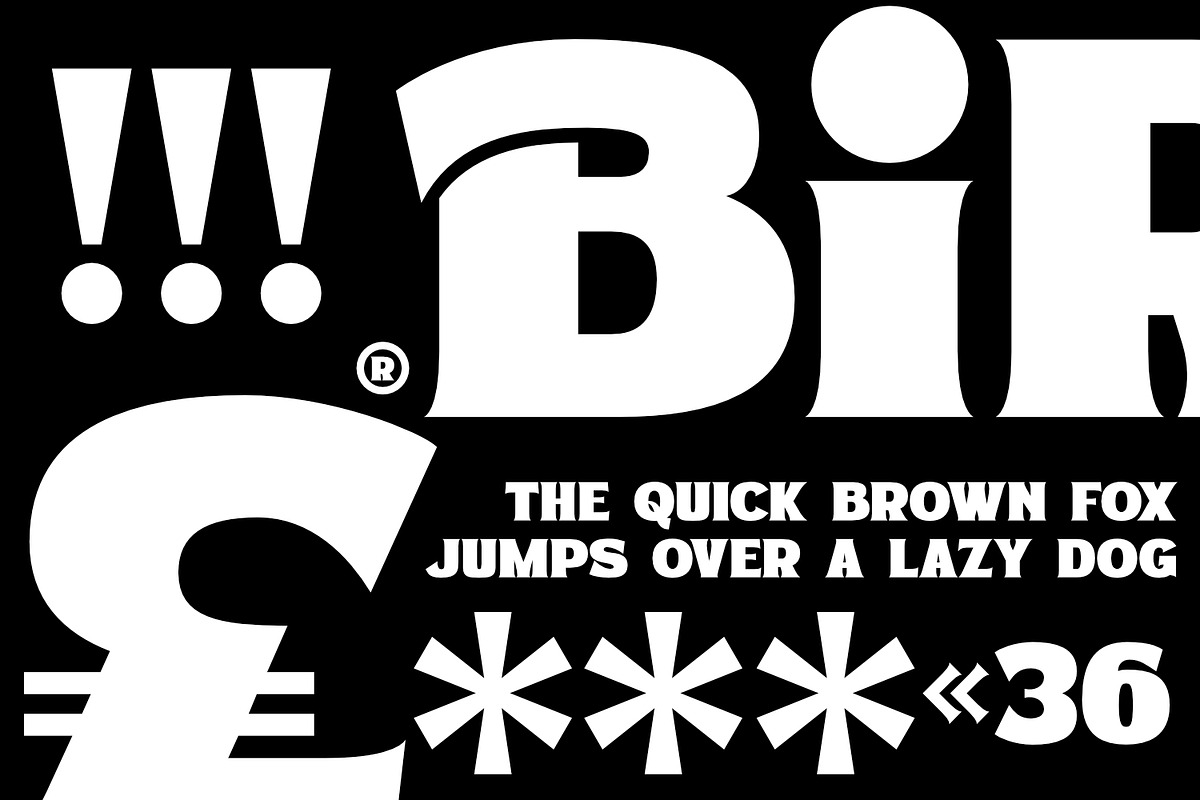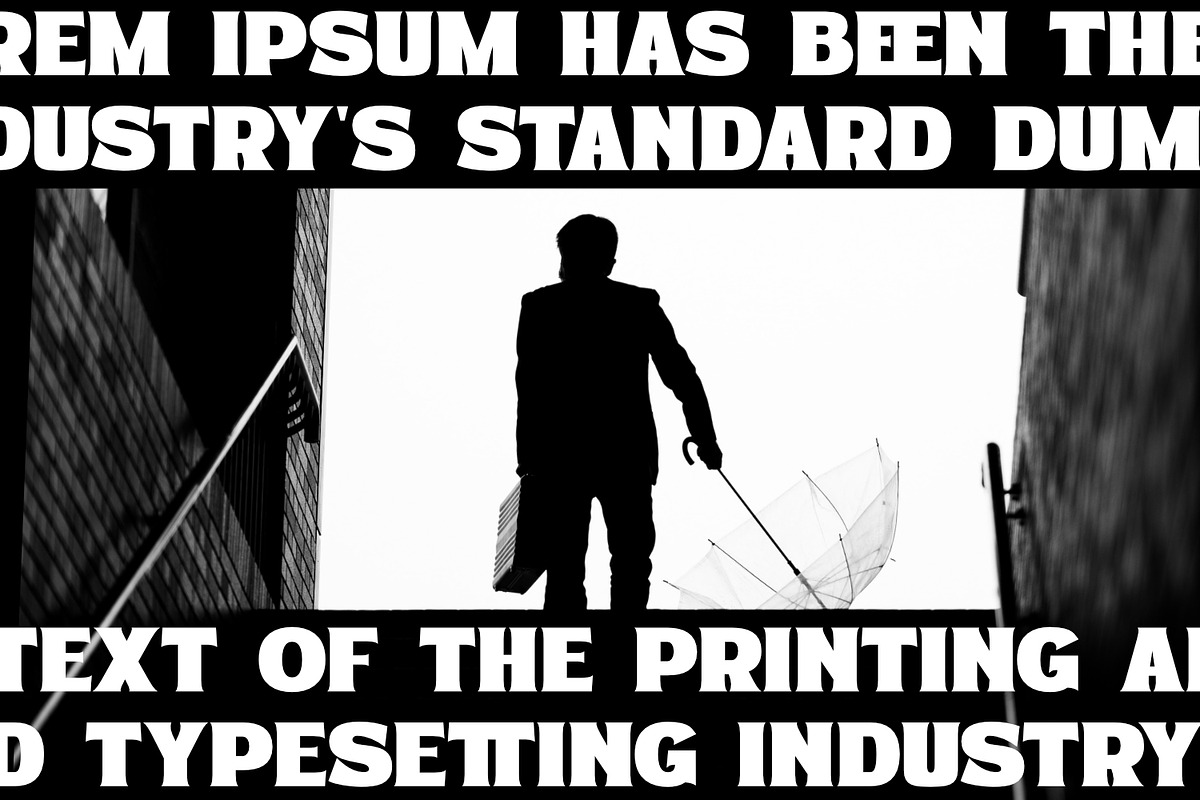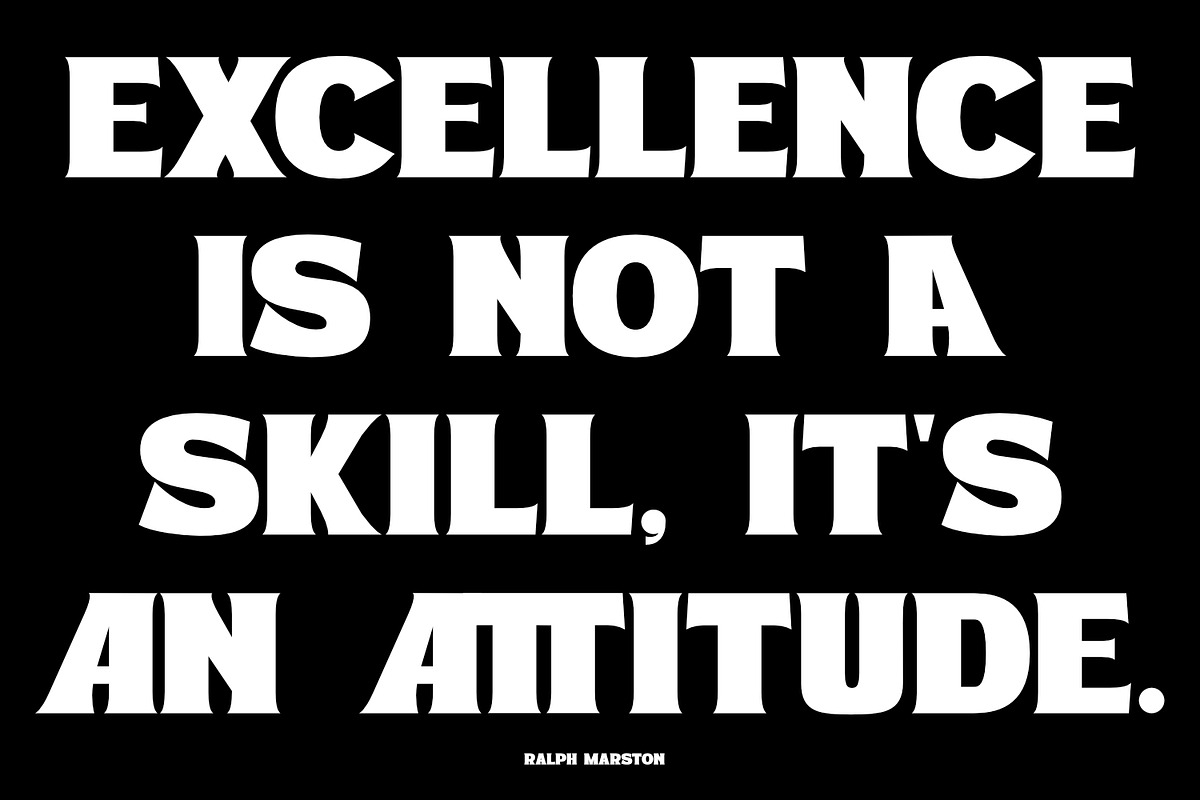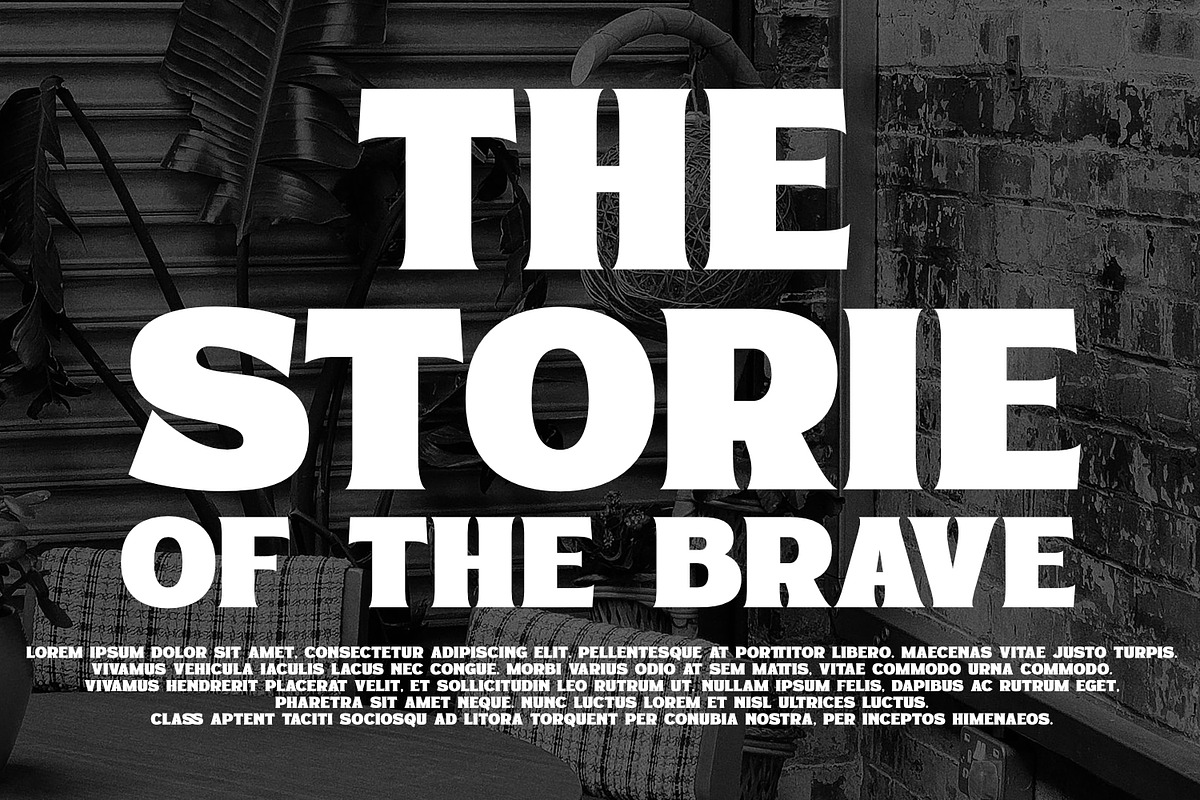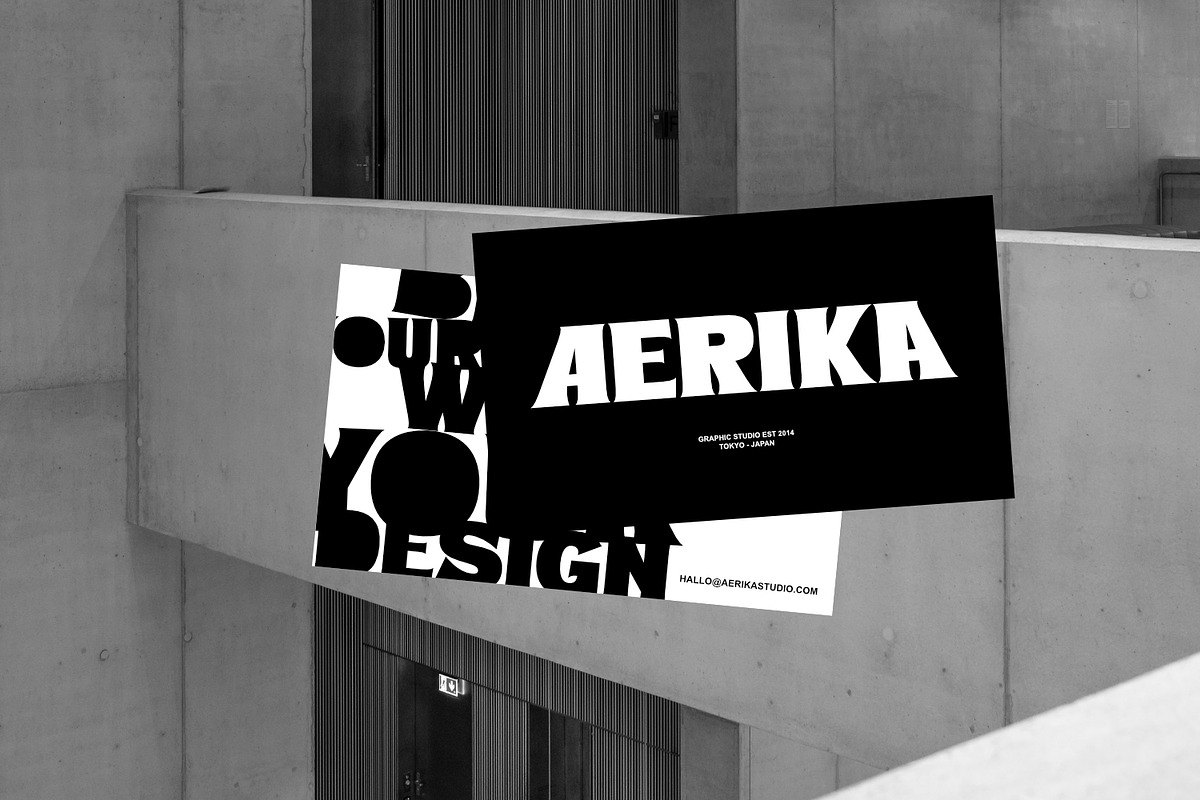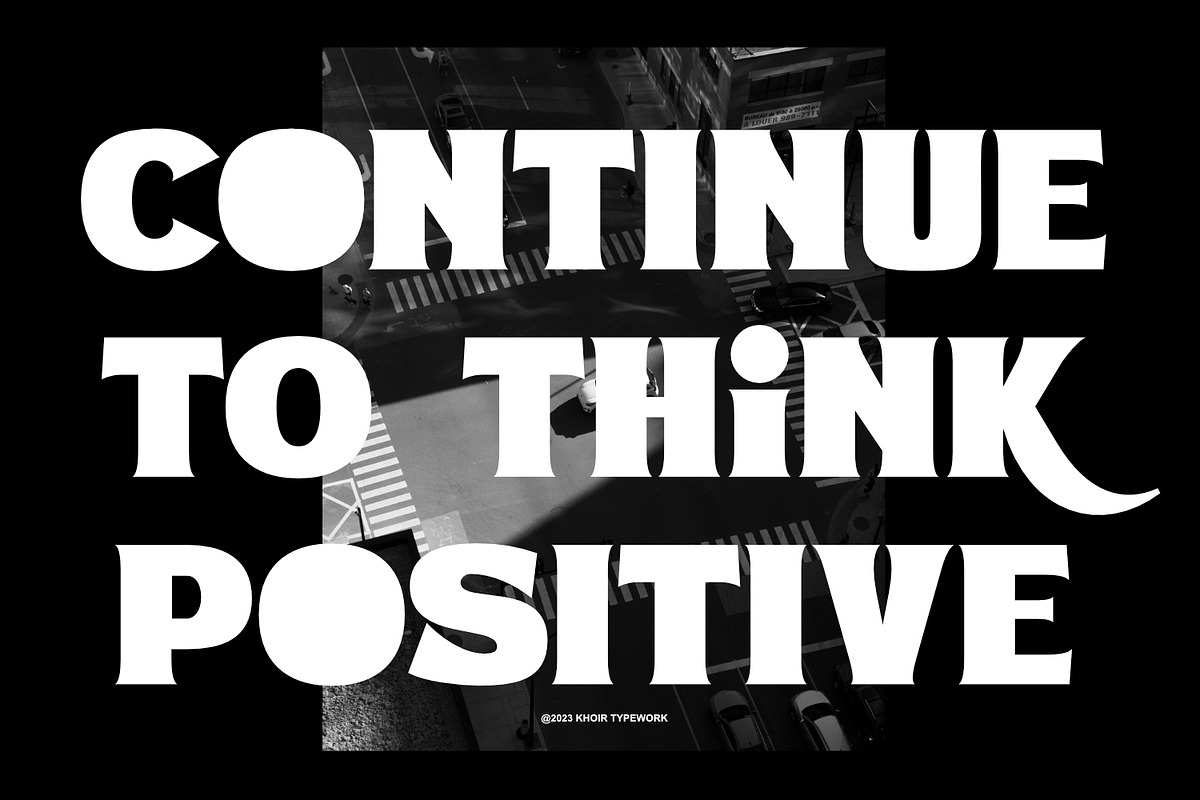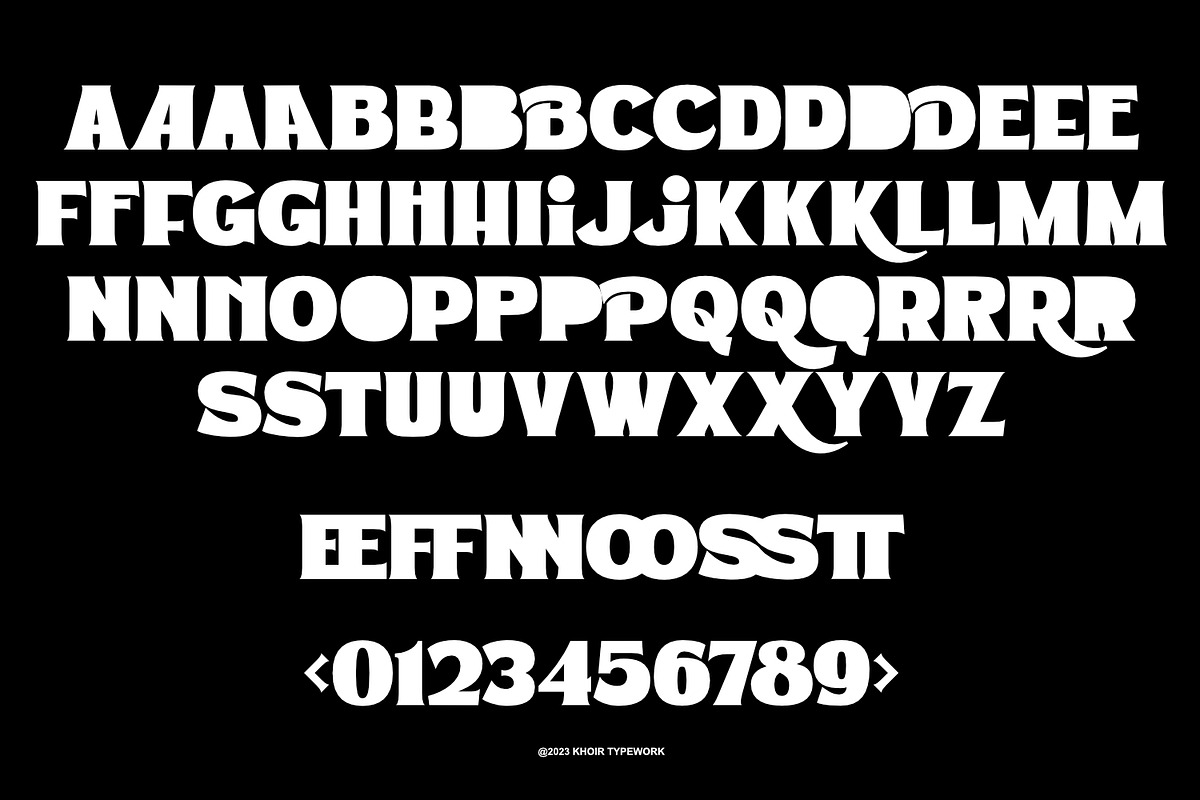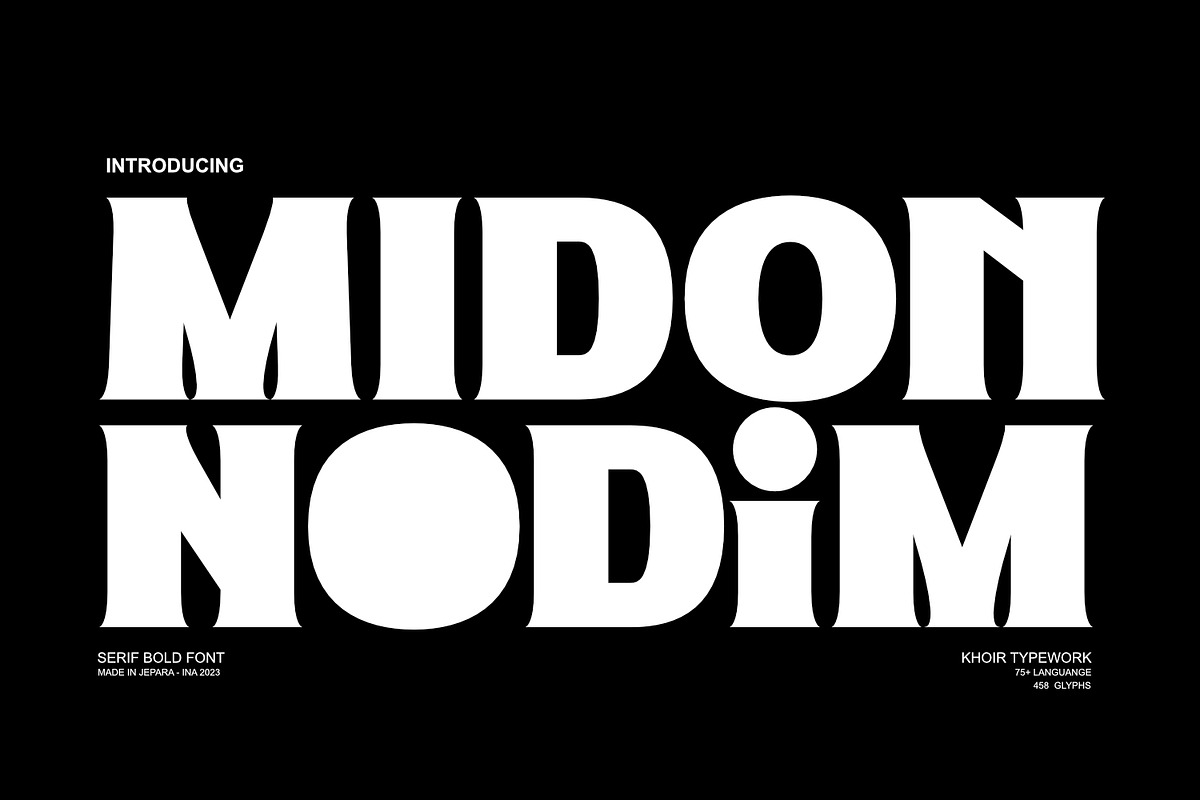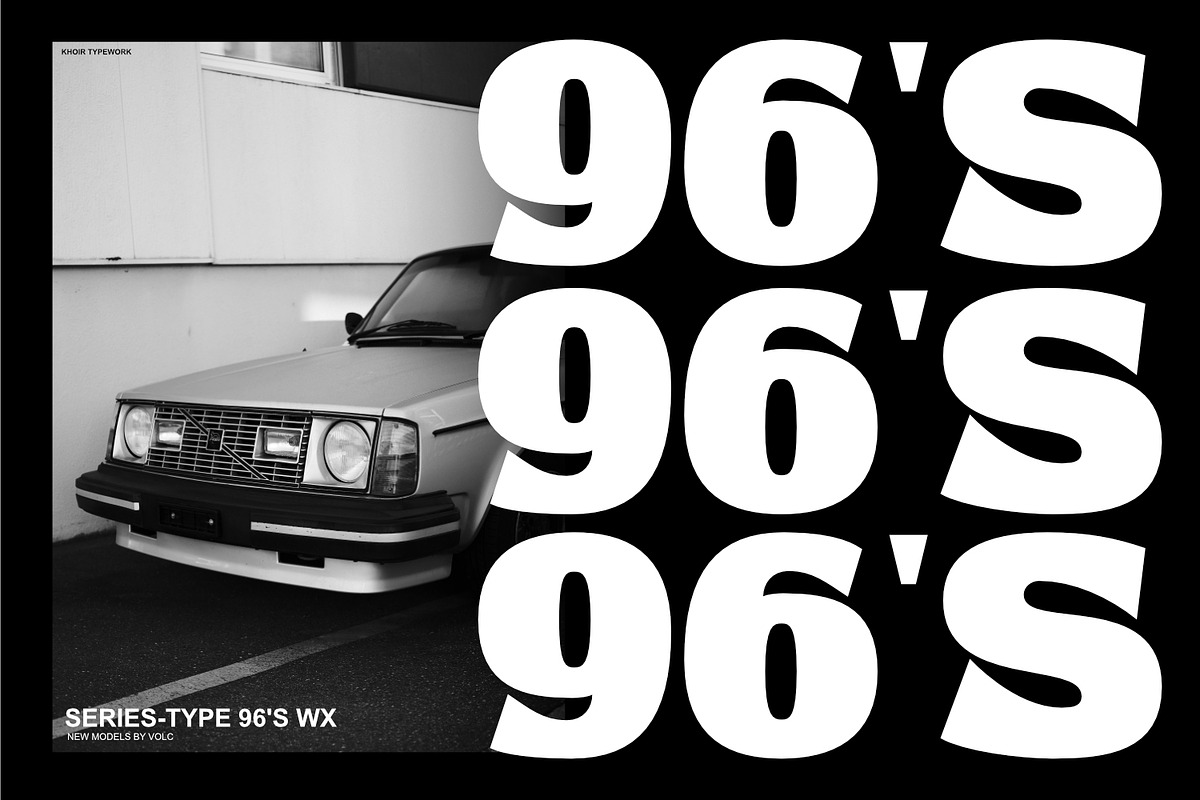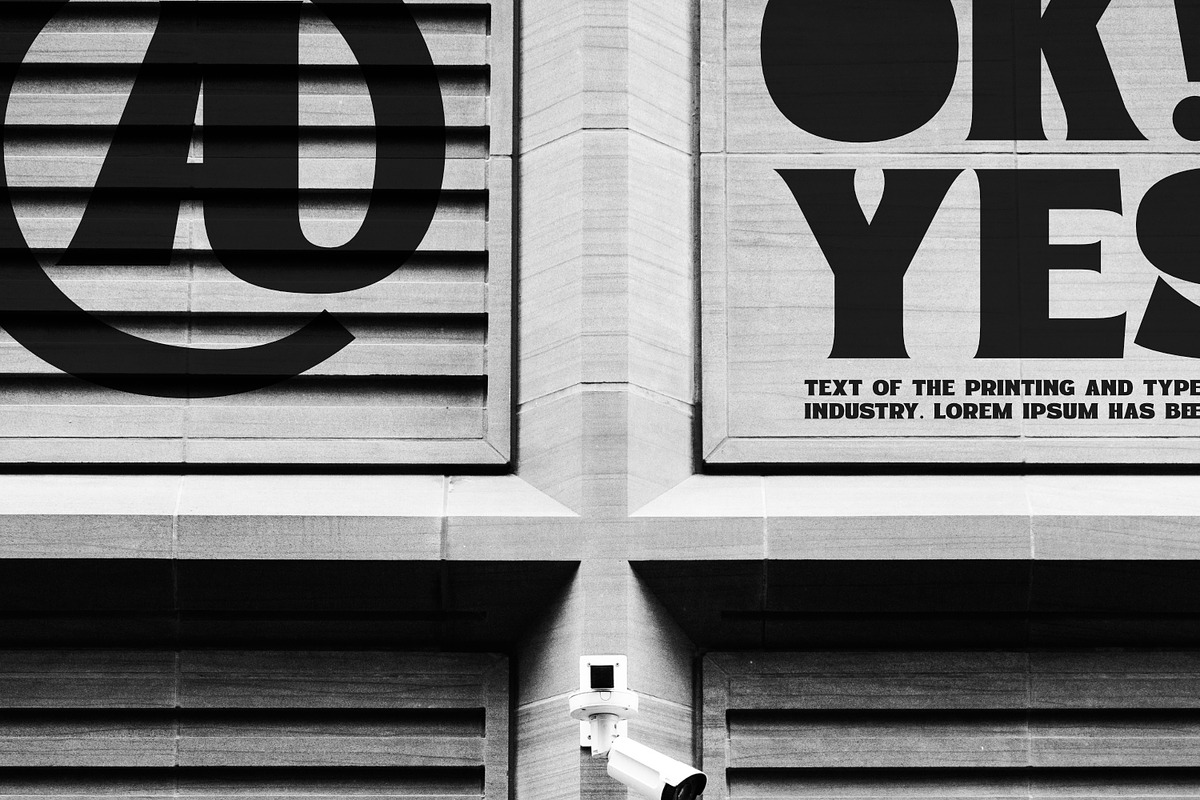
Midon - Serif Bold Modern
Midon font type is a thick serif with an elegant appearance. Having a personality that dares to create feelings and expressions that are firm but gentle so that they can be used as work tools so that the communication conveyed will easily feel beautiful.
- 75+ Language
- Alternate & Ligature